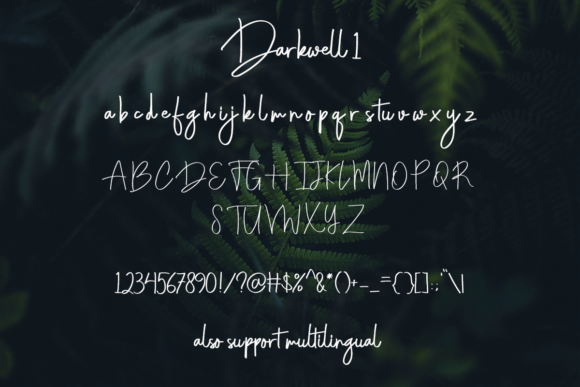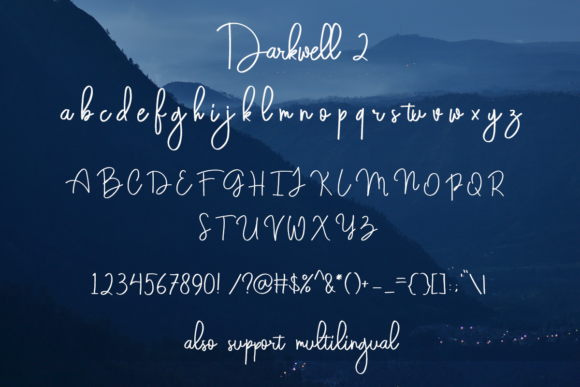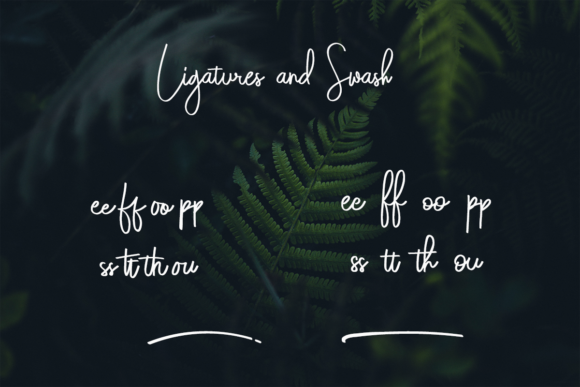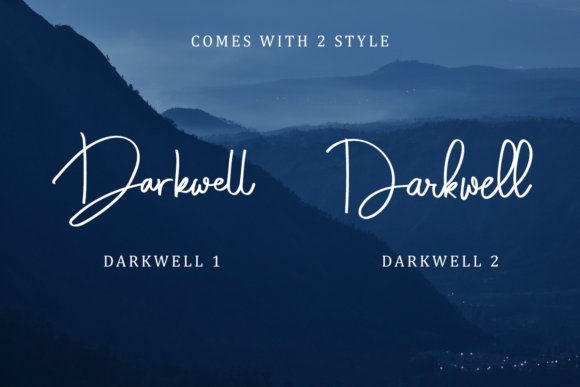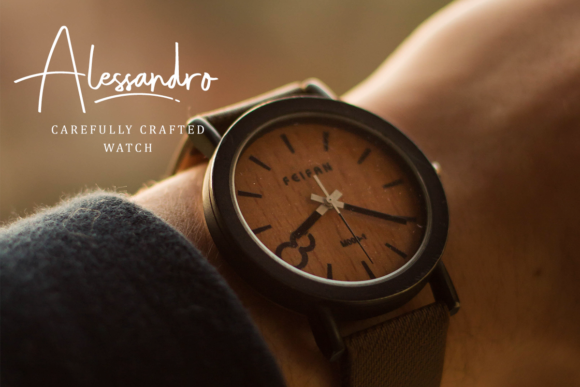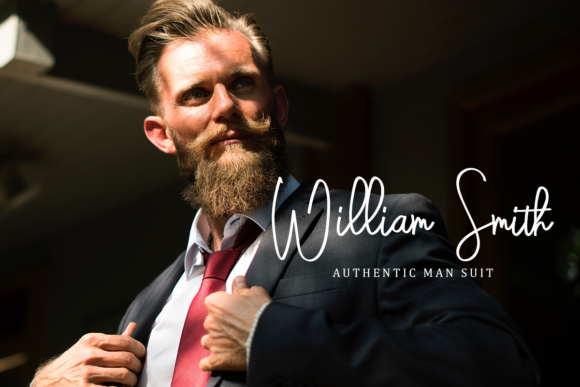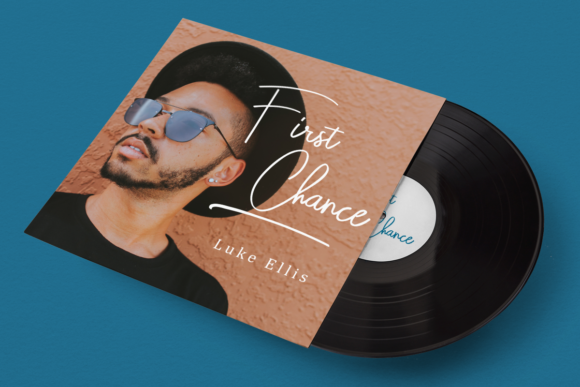
Darkwell Family Font
About Darkwell Family Font
The Darkwell is a striking signature family. It includes two fonts which both come in three weights; regular, bold, and italic.
Both fonts are perfect for branding projects or just to add a stylish touch to your background image.